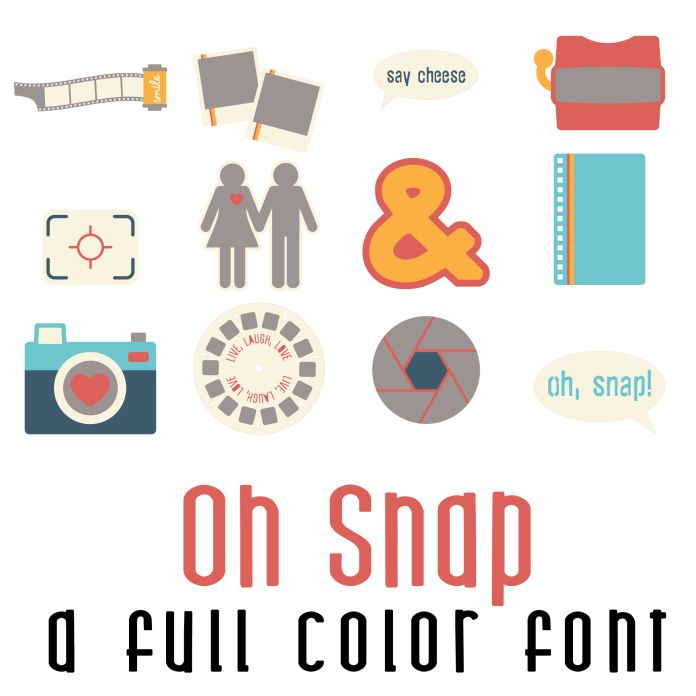
This fun full color font features 26 all things that snap! From cameras, frames film and fun journaling elements. Perfect for cards, crafts, gifts, decor, scrapbook pages, planner stickers and more!